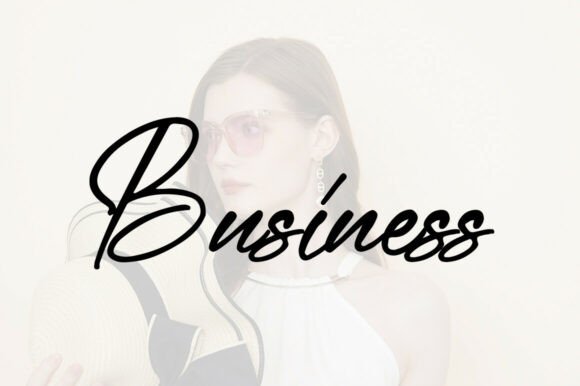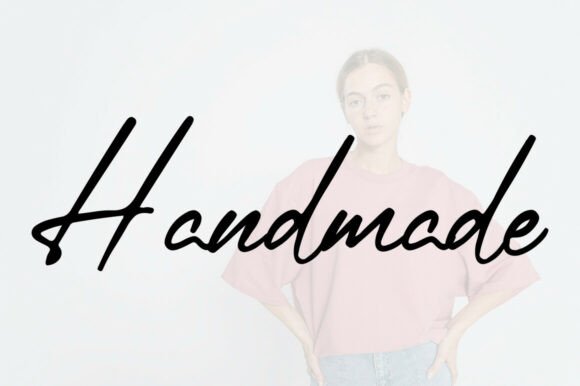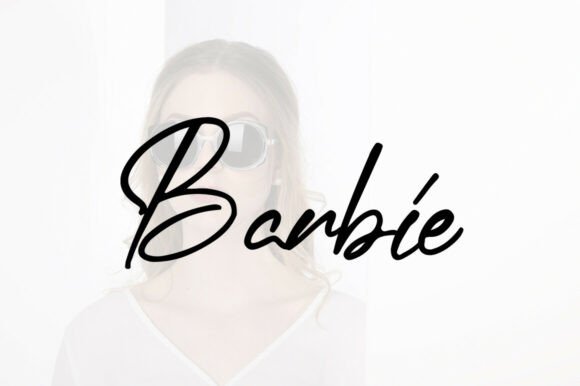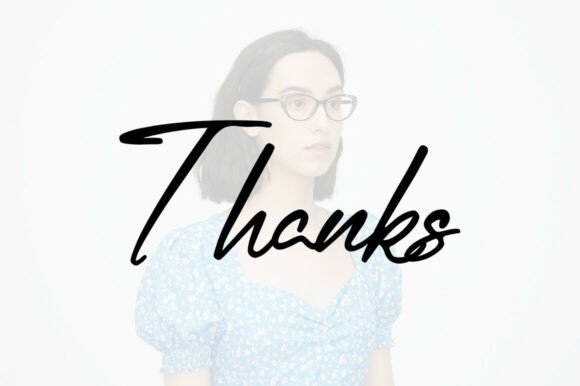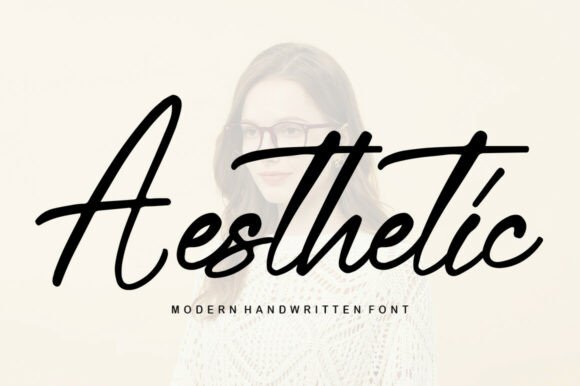
The Beauty of Aesthetic Font: Elevating Designs with Elegance and Flair
In the world of typography, few fonts capture the essence of elegance and sophistication as beautifully as the Aesthetic font. This delicate, elegant, and flowing handwritten font has become a favorite among designers and crafters alike, and for good reason. With its well-balanced characters and versatile charm, Aesthetic font seamlessly matches a wide pool of designs, making it an ideal choice for those seeking to add a touch of refinement to their projects.
What Makes Aesthetic Font So Special?
So, what sets Aesthetic font apart from other fonts in the market? The answer lies in its unique blend of classic charm and modern flair. Each character is carefully crafted to exude a sense of fluidity and movement, giving the font a dynamic and organic feel. The letters are beautifully proportioned, with subtle variations in line width and curvature that add to the font’s handmade appeal.
Whether you’re designing a wedding invitation, a fashion brochure, or a personal blog, Aesthetic font is sure to bring a level of sophistication and glamour to your project. Its elegant and refined appearance makes it perfect for use in:
- Wedding stationery and invitations
- Fashion branding and advertising
- Personal blogs and lifestyle websites
Key Features of Aesthetic Font
So, what are the key features that make Aesthetic font so versatile and appealing? Here are just a few:
- Delicate and elegant: Aesthetic font boasts a delicate and elegant appearance, making it perfect for designs that require a touch of sophistication.
- Handwritten charm: The font’s handwritten nature gives it a unique and personal feel, adding a touch of warmth and humanity to any design.
- Well-balanced characters: Each character is carefully crafted to ensure balance and harmony, making the font easy to read and visually appealing.
- Versatile: Aesthetic font matches a wide pool of designs, making it an excellent choice for designers and crafters who need a font that can adapt to different styles and themes.
Tips for Using Aesthetic Font Effectively
To get the most out of Aesthetic font, here are a few tips to keep in mind:
- Pair with contrasting fonts: Aesthetic font pairs beautifully with bold and modern fonts, creating a striking contrast that adds visual interest to your design.
- Experiment with colors: The font’s elegant appearance makes it easy to experiment with different colors and textures, adding depth and dimension to your design.
- Use for headlines and titles: Aesthetic font is perfect for use in headlines and titles, where its elegant and refined appearance can add a touch of sophistication.
In conclusion, Aesthetic font is a beautiful and versatile font that offers a unique blend of elegance, sophistication, and handmade charm. With its well-balanced characters and flowing appearance, it’s perfect for designers and crafters seeking to add a touch of refinement to their projects. Whether you’re designing a wedding invitation, a fashion brochure, or a personal blog, Aesthetic font is sure to elevate your design and leave a lasting impression.